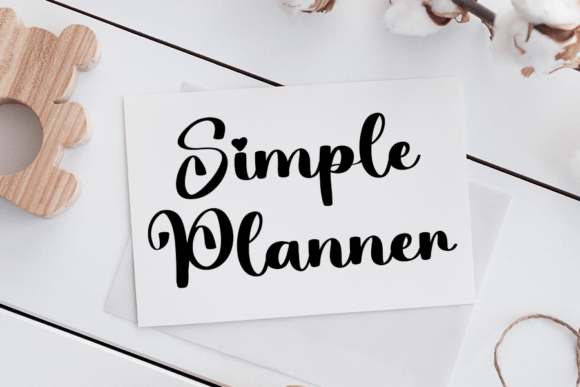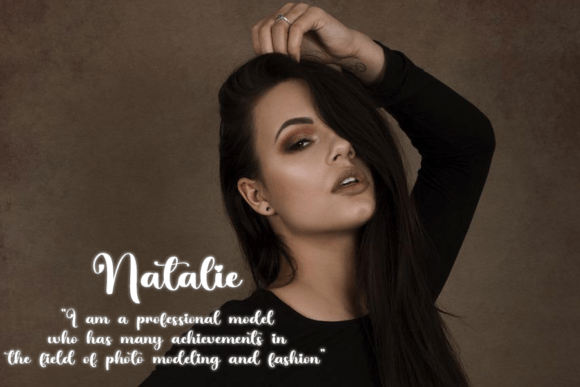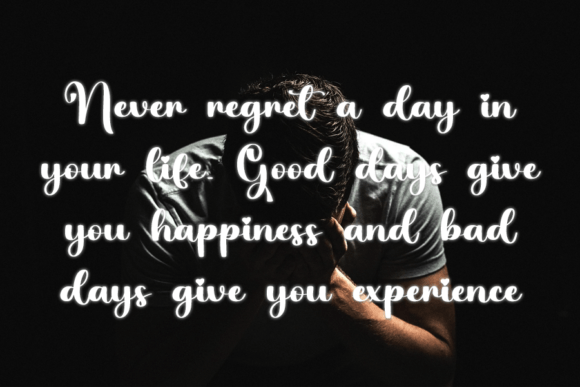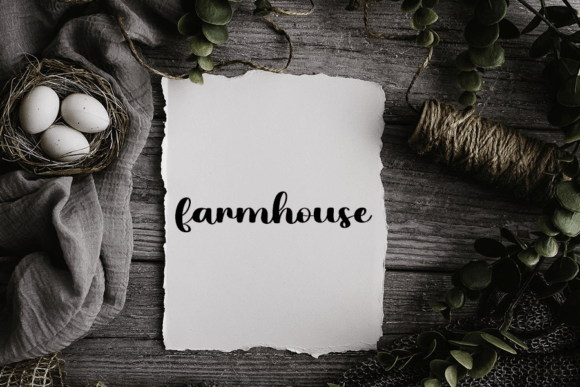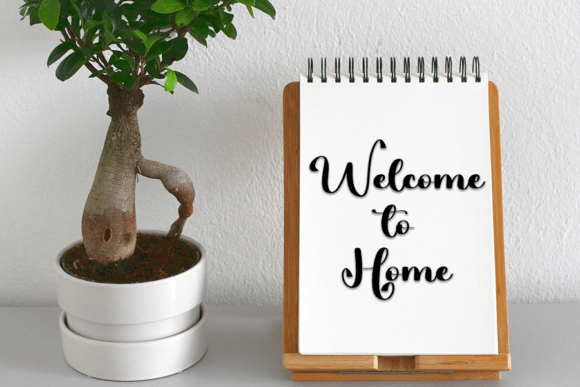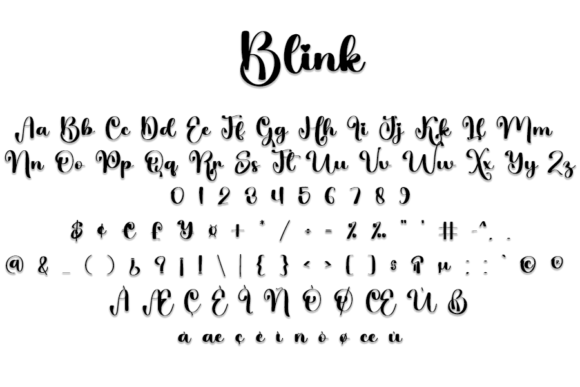
Introducing Blink Font: Elevate Your Designs with a Modern Handwritten Twist
In the world of typography, fonts play a crucial role in conveying messages, expressing emotions, and creating a lasting impression. For designers and crafters, finding the perfect font that combines elegance, modernity, and readability can be a daunting task. However, if you’re looking for a cool handwritten font that embodies a modern vibe and spotless form, look no further than Blink Font.
Inspired by Classic Calligraphy
Blink Font draws inspiration from classic calligraphy, bringing a touch of sophistication and refinement to your designs. With its balanced and varied strokes, this font strikes the perfect chord between being too thin and too thick, making it an excellent choice for a wide range of projects. Whether you’re working on a logo, branding materials, or digital content, Blink Font is sure to enhance the beauty of your creations.
Key Features of Blink Font
- Modern Vibe: Blink Font boasts a modern and fresh feel, making it perfect for designers who want to add a contemporary twist to their work.
- Balanced Strokes: The font’s balanced strokes ensure that it’s not too thin or too thick, providing excellent readability and visual appeal.
- Varied Letterforms: Blink Font features varied letterforms that add a touch of elegance and sophistication to your designs.
- Spotless Form: The font’s spotless form ensures that it’s free from any imperfections, making it perfect for high-end designs and projects.
Why Choose Blink Font?
With so many fonts available, why should you choose Blink Font for your next project? Here are a few compelling reasons:
- Versatility: Blink Font is an incredibly versatile font that can be used for a wide range of projects, from logos and branding materials to digital content and more.
- Elegance: The font’s elegant and refined design makes it perfect for projects that require a touch of sophistication.
- Readability: Blink Font’s balanced strokes and varied letterforms ensure excellent readability, making it perfect for body text and headings.
- Uniqueness: With its modern vibe and spotless form, Blink Font is sure to make your designs stand out from the crowd.
How to Use Blink Font in Your Designs
Using Blink Font in your designs is easy and straightforward. Here are a few tips to get you started:
- Pair it with Other Fonts: Blink Font pairs well with other fonts, making it easy to create stunning font combinations.
- Experiment with Colors: The font’s spotless form and balanced strokes make it perfect for experimenting with different colors and textures.
- Use it for Headings and Body Text: Blink Font’s excellent readability makes it perfect for both headings and body text.
In conclusion, Blink Font is an exceptional handwritten font that brings a modern vibe and spotless form to your designs. With its balanced strokes, varied letterforms, and elegant design, this font is perfect for designers and crafters who want to elevate their projects to the next level. Whether you’re working on a logo, branding materials, or digital content, Blink Font is sure to make a lasting impression.